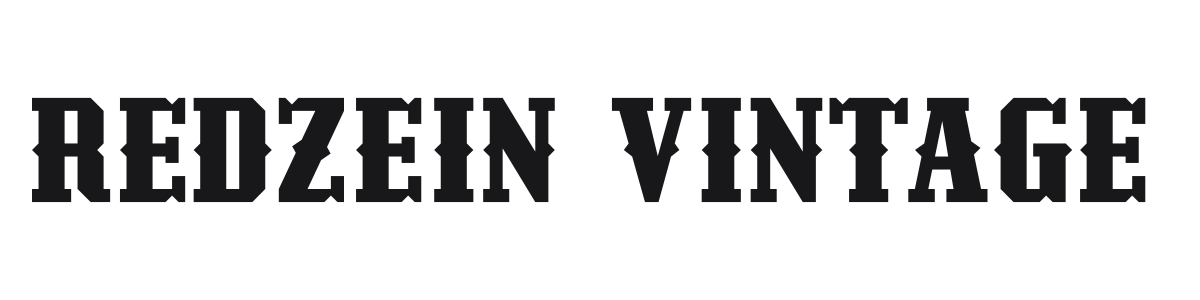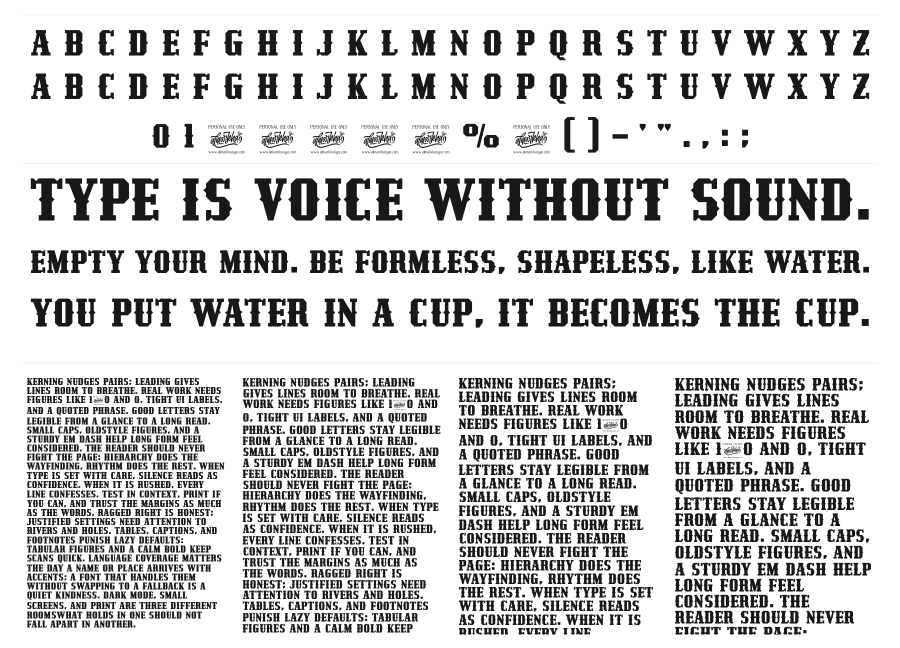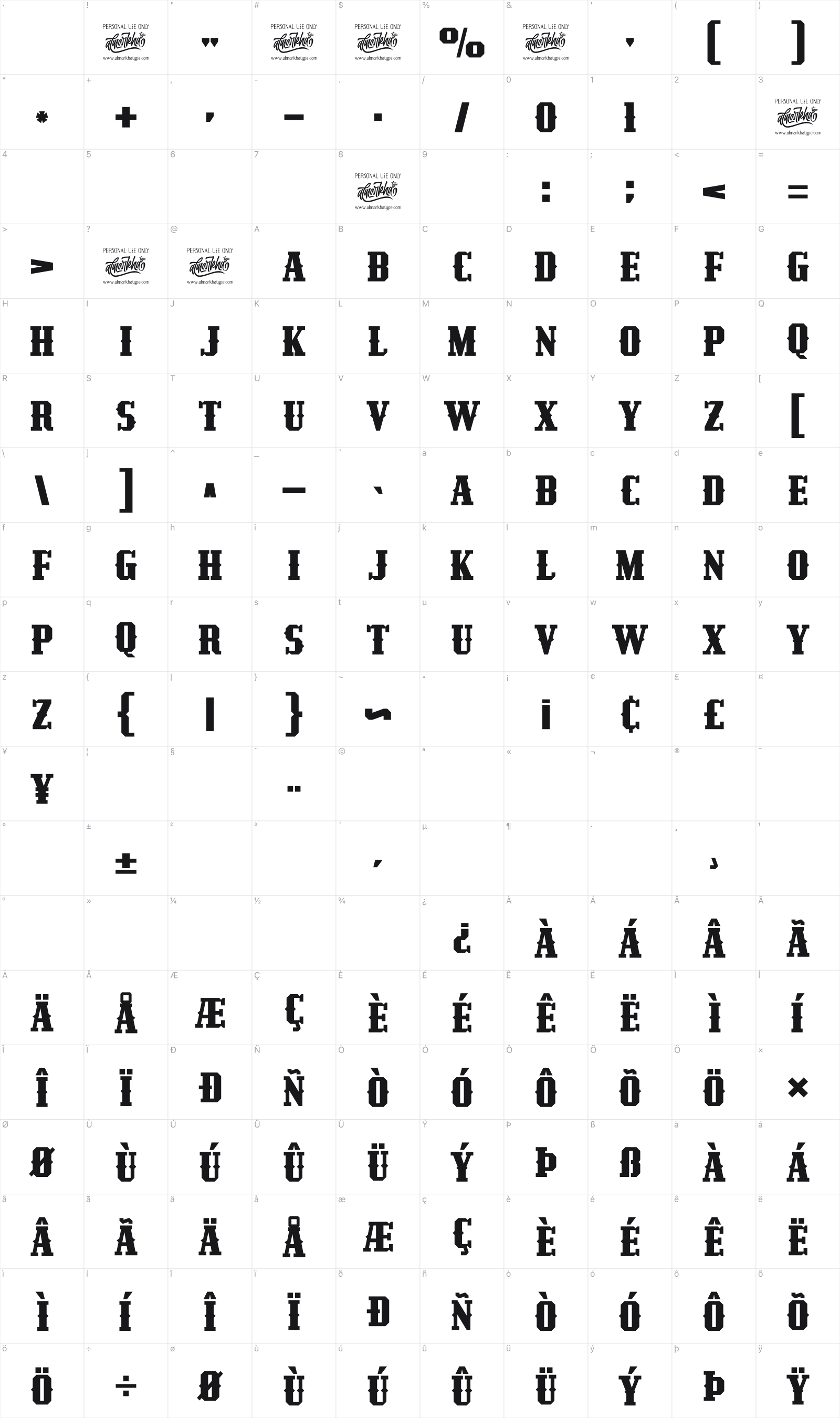
Redzein Vintage
Redzein Vintage is a heavy condensed slab serif rooted in 19th-century wood type and Wild West poster traditions. Subtle notched details within the strokes give it an aged, hand-worn quality without going full distressed. Strong at large sizes for posters, labels, and any project that needs a bold heritage voice.